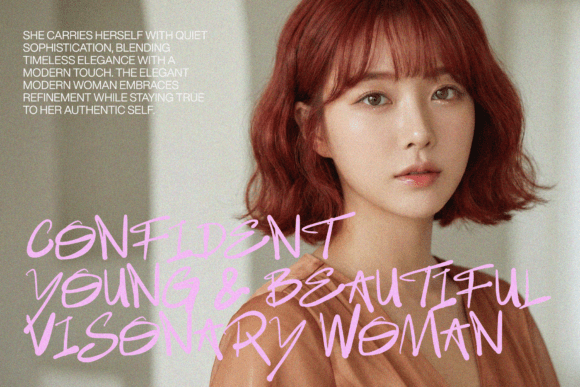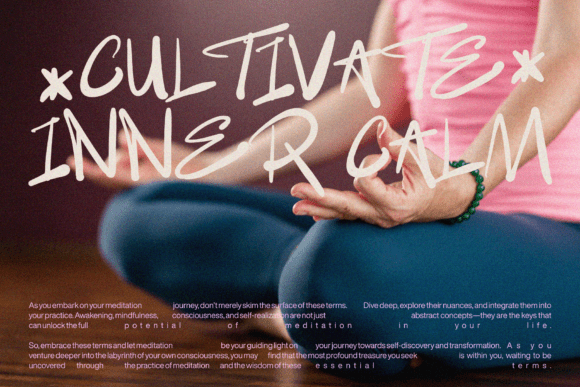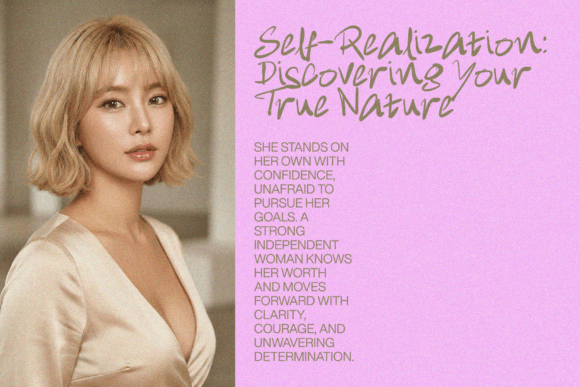
Introduction to New Siqon Font
Imagine you’re working on a project and you need a font that screams energy and dynamism. The cursor hovers over your computer screen as you scroll through font options, but none seem to capture the essence of your creative vision. Then, like a breath of fresh air, you stumble upon the New Siqon Font. Its bold brush strokes and raw intensity immediately grab your attention, and you can’t help but feel a rush of excitement.
As a designer, you understand the value of having the right design resource at your fingertips. The New Siqon Font is more than just a font – it’s a game-changer. With its high-quality design and transparent background, it’s the perfect addition to any creative project. Whether you’re working on a free download or a high-end commercial project, this font is sure to elevate your design to the next level.
So, what are you waiting for? Dive into the world of the New Siqon Font and discover a whole new world of creative possibilities. Get ready to unleash your inner designer and take your projects to new heights with this bold and fearless font.
Key Features of New Siqon Font
- Comes in a transparent background, allowing for seamless integration with various design elements.
- Features a unique, modern design that sets it apart from other fonts in its category.
- Perfect for designers, artists, and anyone looking for a high-quality, free design resource to enhance their creative projects.
Honest Review: New Siqon Font
I recently came across the New Siqon Font, and I was curious to see if it would be a useful addition to my design resources. The free download was a great starting point, and I was pleasantly surprised by the high quality of the font.
One of the standout features of the New Siqon Font is its versatility. It’s perfect for creating a wide range of designs, from logos to typography-heavy projects. The transparent background option is also a great feature, allowing for seamless integration with any design.
Here are some of the things that work well with the New Siqon Font:
- Transparent background option for easy integration
- Wide range of design applications, from logos to typography-heavy projects
- ⚠️ Limited character set, which may not be suitable for complex designs
- ⚠️ Not all font weights are equally legible, so be mindful of your design choices
Overall, I was impressed with the New Siqon Font and would recommend it as a valuable design resource. With a little creativity and attention to detail, it’s a great addition to any design project. ✨”
Tips for Getting the Most Out of New Siqon Font
For optimal results, use the New Siqon Font with a transparent background to ensure a high-quality, design-focused look. Experiment with different font sizes, colors, and styles to find the perfect combination for your creative project.
The New Siqon Font is ideal for a variety of design projects, including:
- Branding materials
- Infographics
- Presentations
Open Sans is a popular and highly legible font that’s perfect for design resources and creative projects. It’s available for free download and has a transparent background, making it a great choice for designers who need a high-quality font without any restrictions. Open Sans is a great alternative to New Siqon Font when you need a font that’s easy to read and versatile.